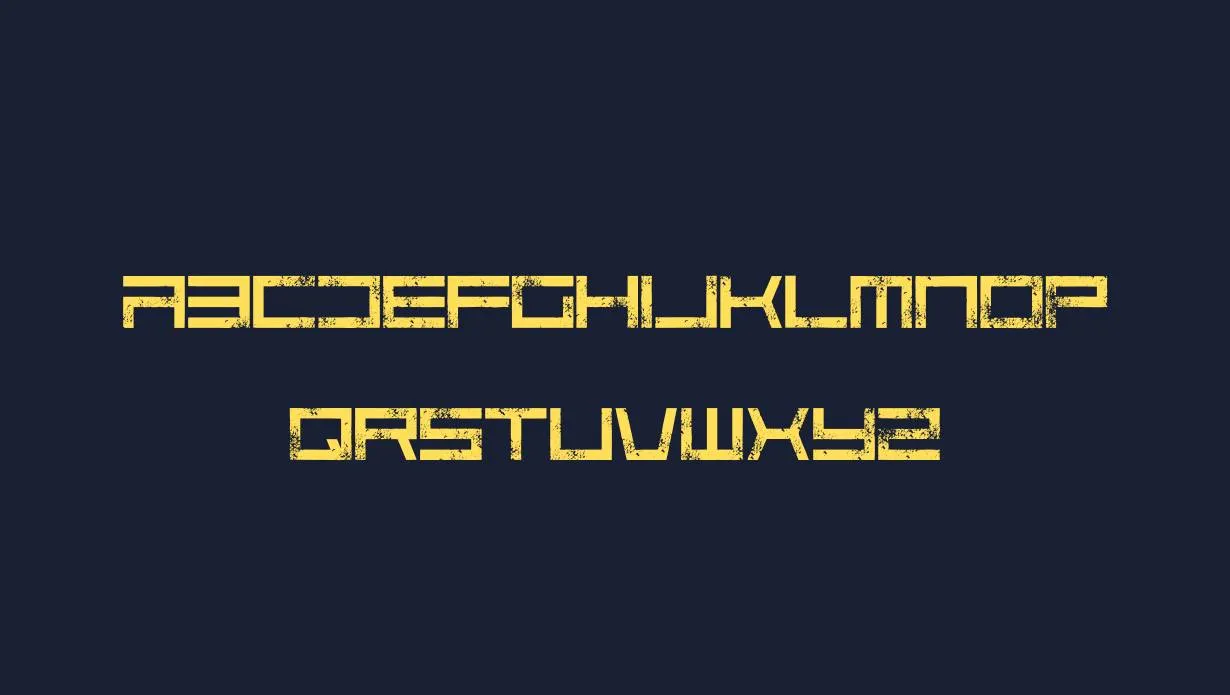
Code Predators Font is a typeface with a modern and technical design, often used in tech-related design projects, web design, and digital interfaces.
Name Code Predators Font
Designer Font Monger
Style Techno
Its clean lines and geometric letterforms convey precision and efficiency in design work.